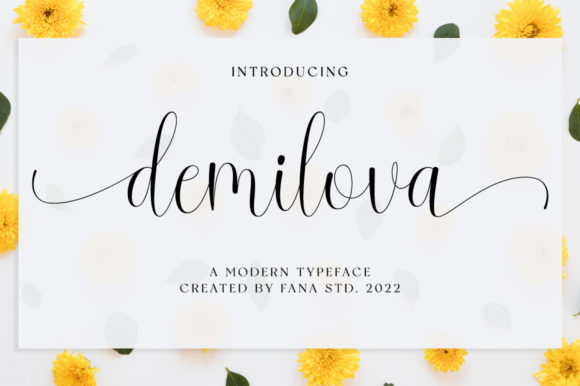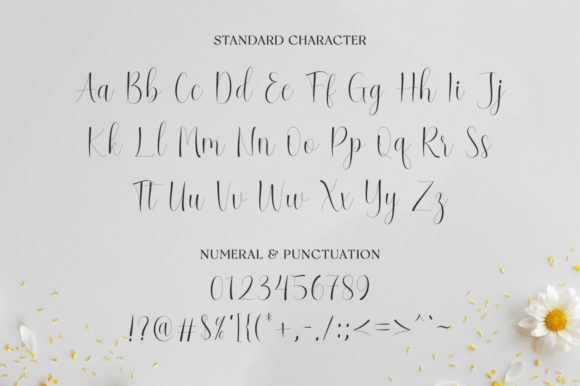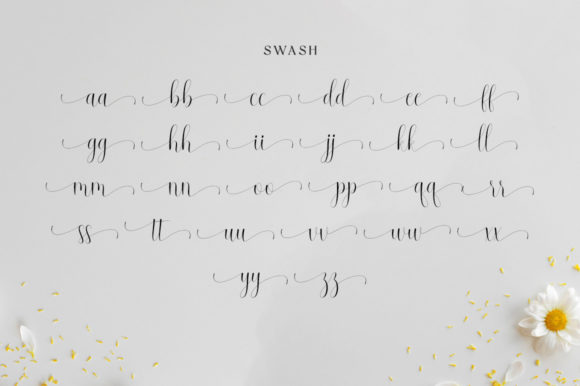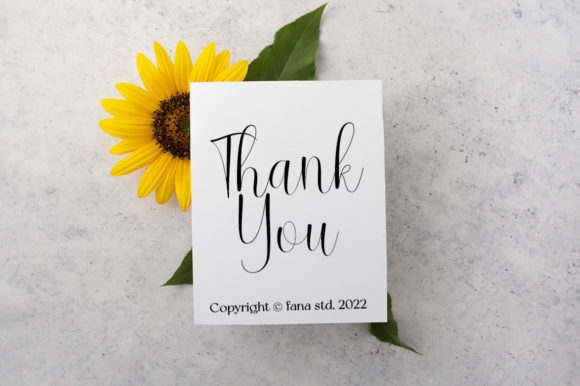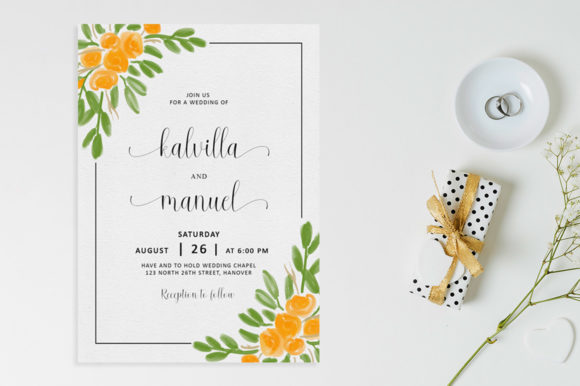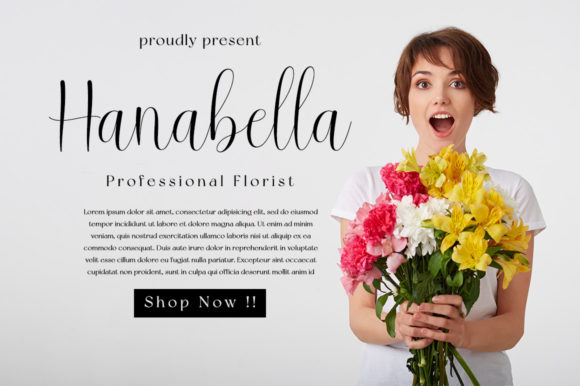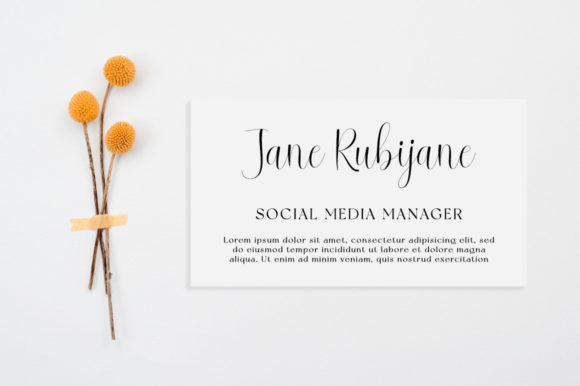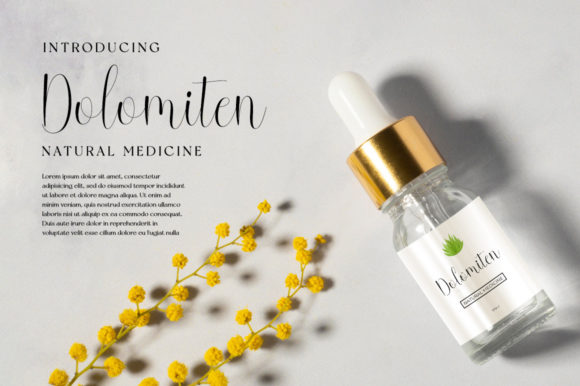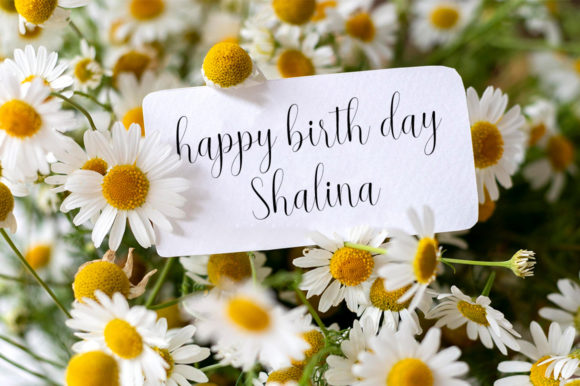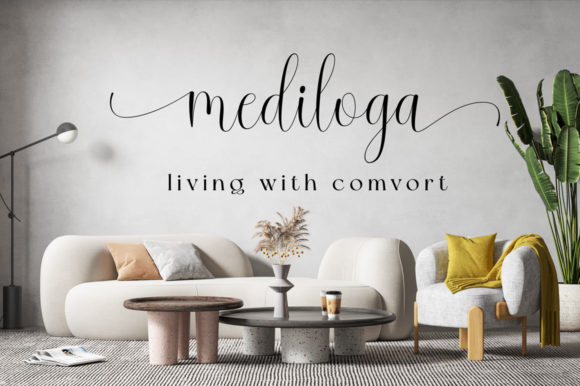
Demilova Font
About Demilova Font
“Demilova” exudes both charm and elegance, making it a font that is equally captivating and refined. Its beauty shines in various applications such as wedding invitations, thank you cards, quotes, greeting cards, logos, business cards, and any design that benefits from a touch of handwritten sophistication.
The font’s allure lies in its ability to effortlessly convey a sense of both charm and sophistication. It holds a remarkable presence in projects where a handwritten aesthetic is desired, infusing a personal and intimate quality into the design.
“Demilova” proves particularly enchanting on wedding invitations and thank you cards, where its graceful curves and delicate strokes enhance the romantic sentiment. Its adaptability extends to professional contexts as well, like logos and business cards, where it adds a touch of warmth and approachability.
A significant advantage of this font is its PUA encoding, enabling easy access to all the unique glyphs and swashes it offers. This encoding empowers designers to explore a diverse array of design variations and decorative elements, enhancing the font’s potential for creative expression.
In summary, “Demilova” presents a harmonious blend of charm and elegance, tailored for a multitude of creative projects. With its handcrafted appeal and PUA encoding, it stands as a valuable tool for designers seeking to add a personalized and sophisticated touch to their creations.